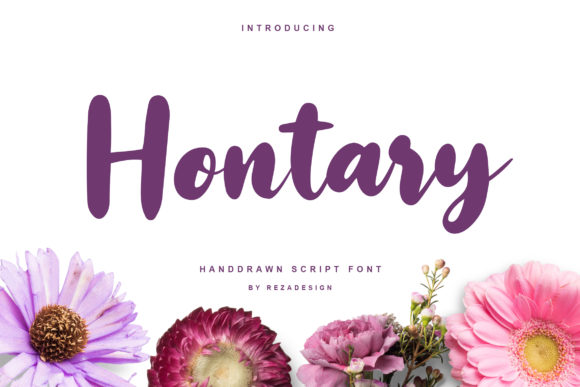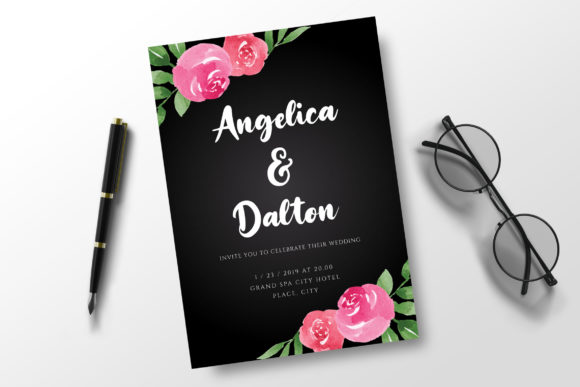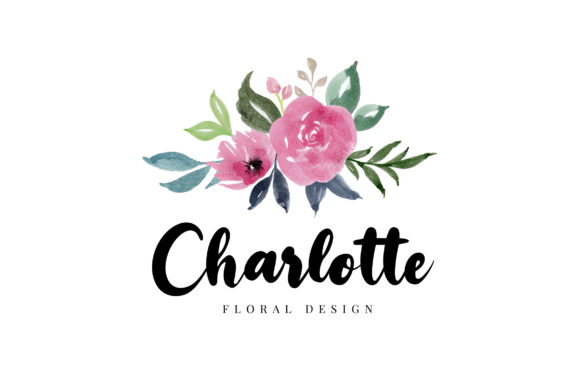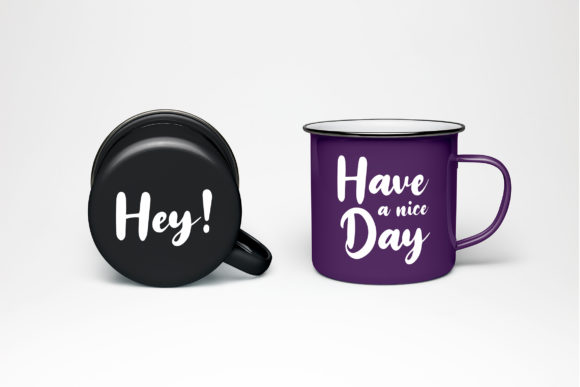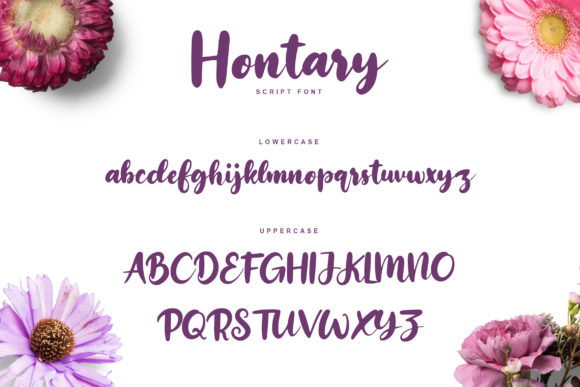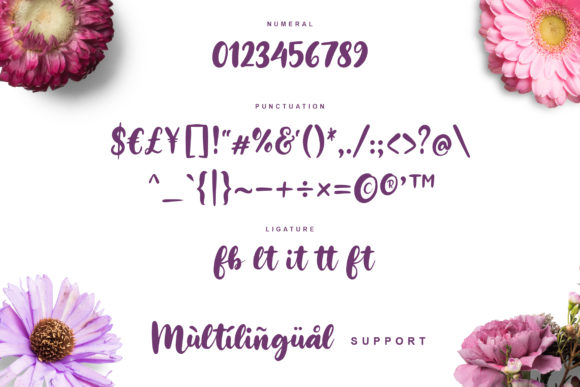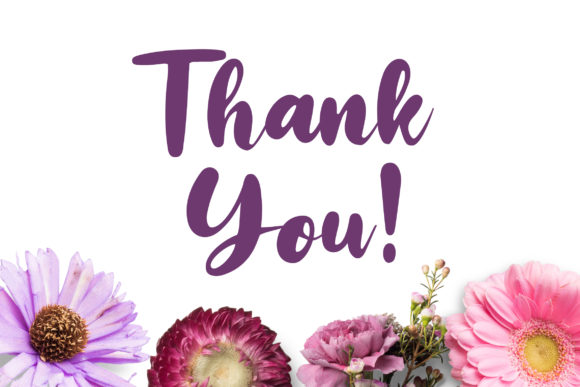
Hontary Font
About Hontary Font
Hontary is an equally charming and elegant handwritten font. It will add a layer of authenticity to any design project.